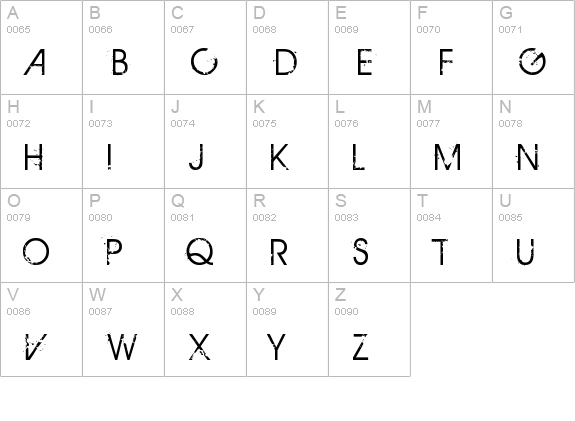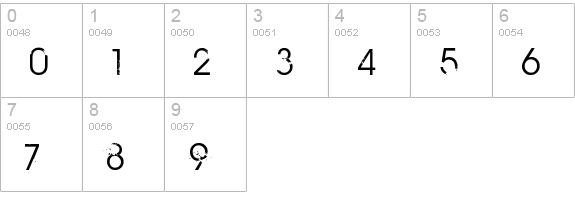
BIRTH OF A HERO Font Details
BIRTH OF A HERO font is a powerful and dynamic typeface that exudes strength and courage. Inspired by the boldness and determination of heroes, this font is perfect for creating impactful designs that demand attention. With its sharp edges and strong lines, BIRTH OF A HERO font commands the viewer's gaze and leaves a lasting impression. Whether you're designing a movie poster, a book cover, or a logo for a daring brand, this font will effortlessly elevate your project to new heights. What sets BIRTH OF A HERO font apart is its versatility. It can be used for both headline and body text, making it a valuable asset for any designer. Its bold presence on the page ensures that your message is conveyed with clarity and impact. The best part? BIRTH OF A HERO font is freely available to download at FontsMarket.com. This means that you can easily access and utilize this incredible font without any hassle or cost. It's a fantastic opportunity to enhance your design arsenal with a font that embodies the spirit of heroism and is ready to unleash its power on your creative projects. Don't miss out on the chance to add BIRTH OF A HERO font to your collection. Download it today from FontsMarket.com and start creating stunning designs that capture the essence of bravery and triumph. Let this font be your guide as you embark on a journey of creativity and inspiration.